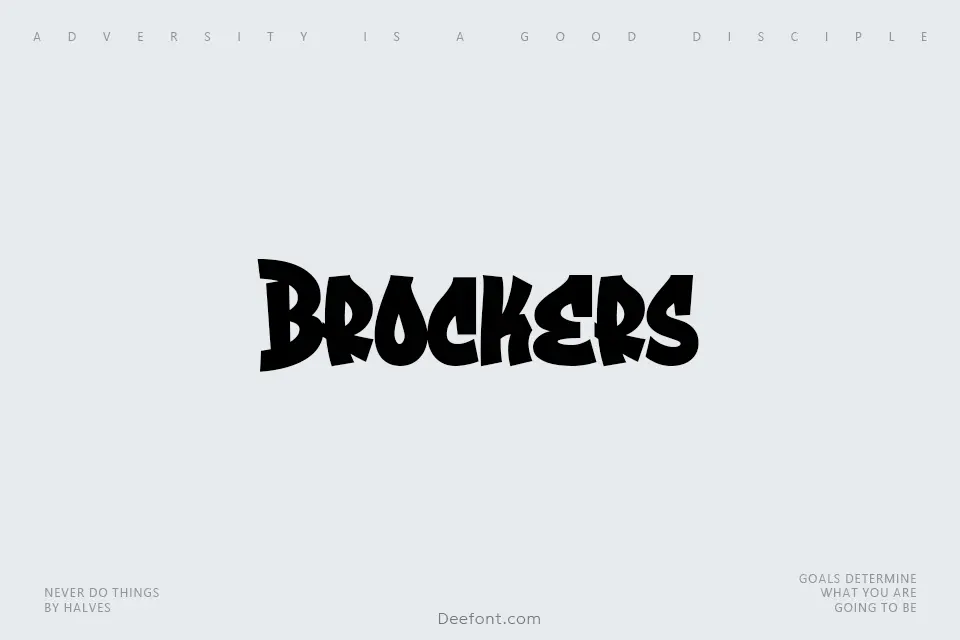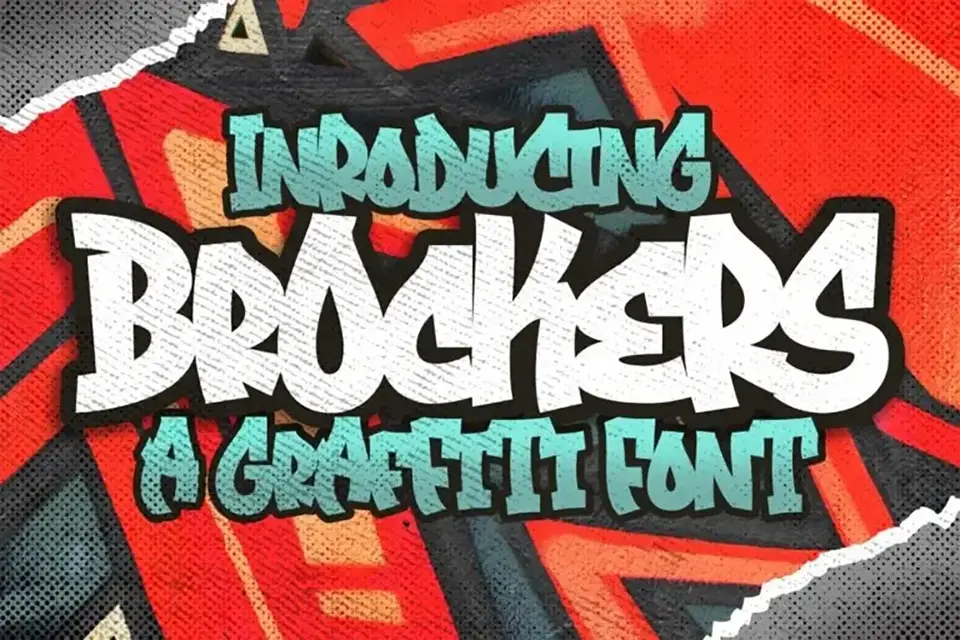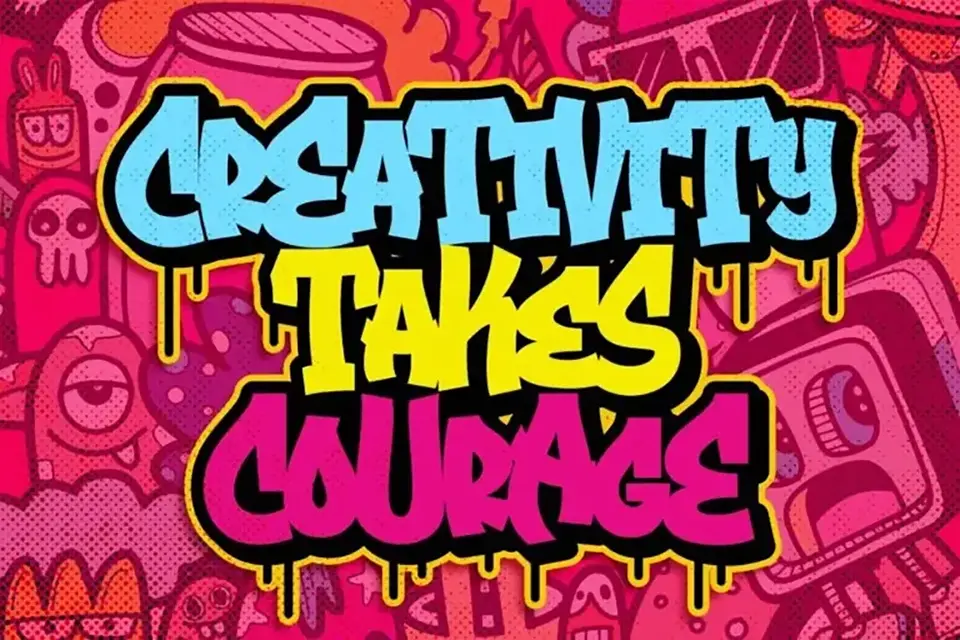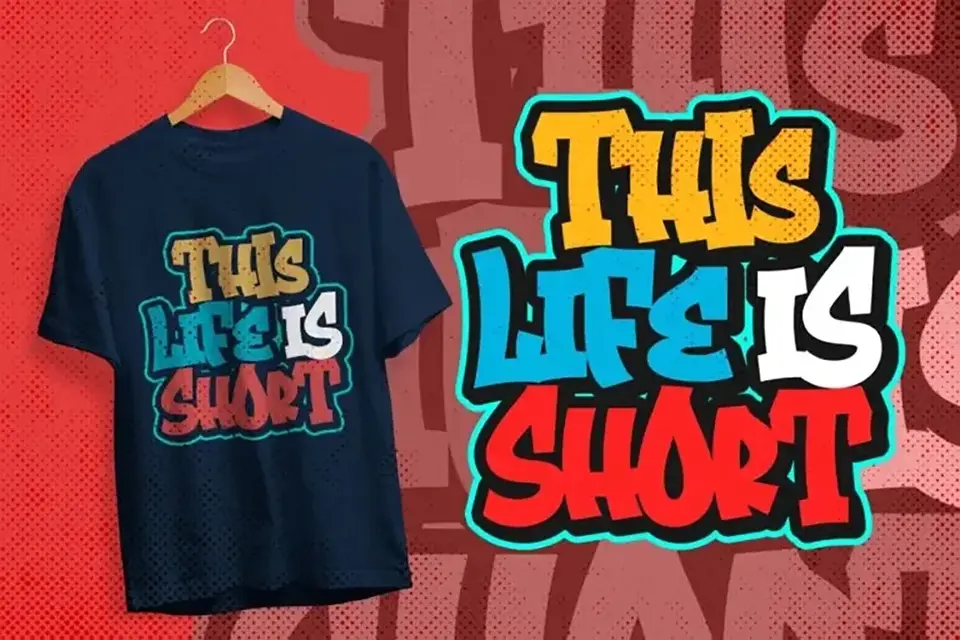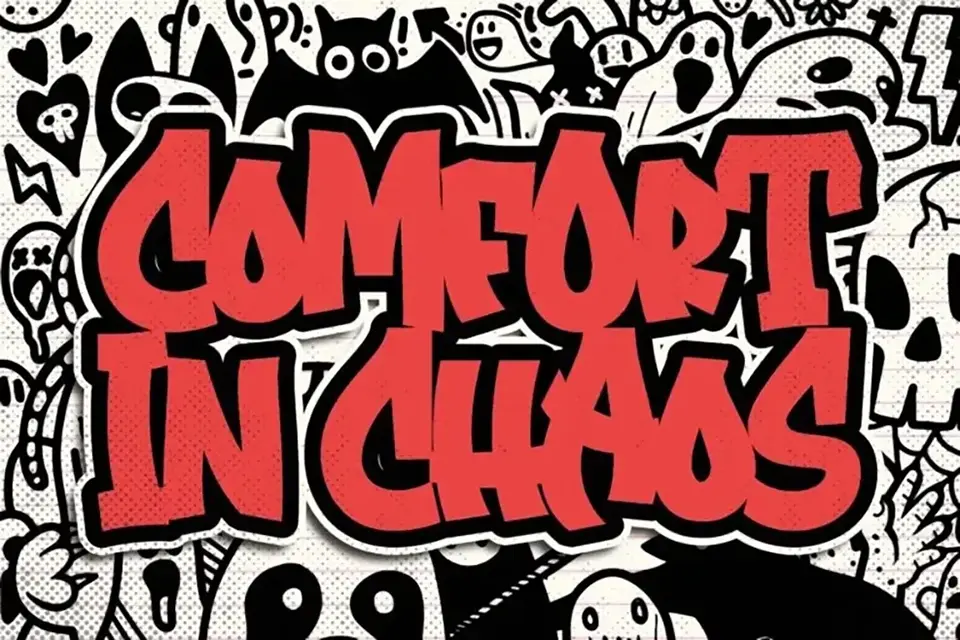
Brockers Font
Brockers is a bold and dynamic graffiti-style display font created by Blankids Studio. Featuring chunky, playful characters with irregular shapes, this typeface is perfect for eye-catching headlines, logos, posters, branding projects, and creative designs that demand attention and personality.